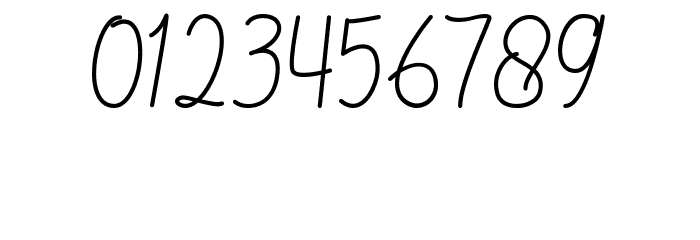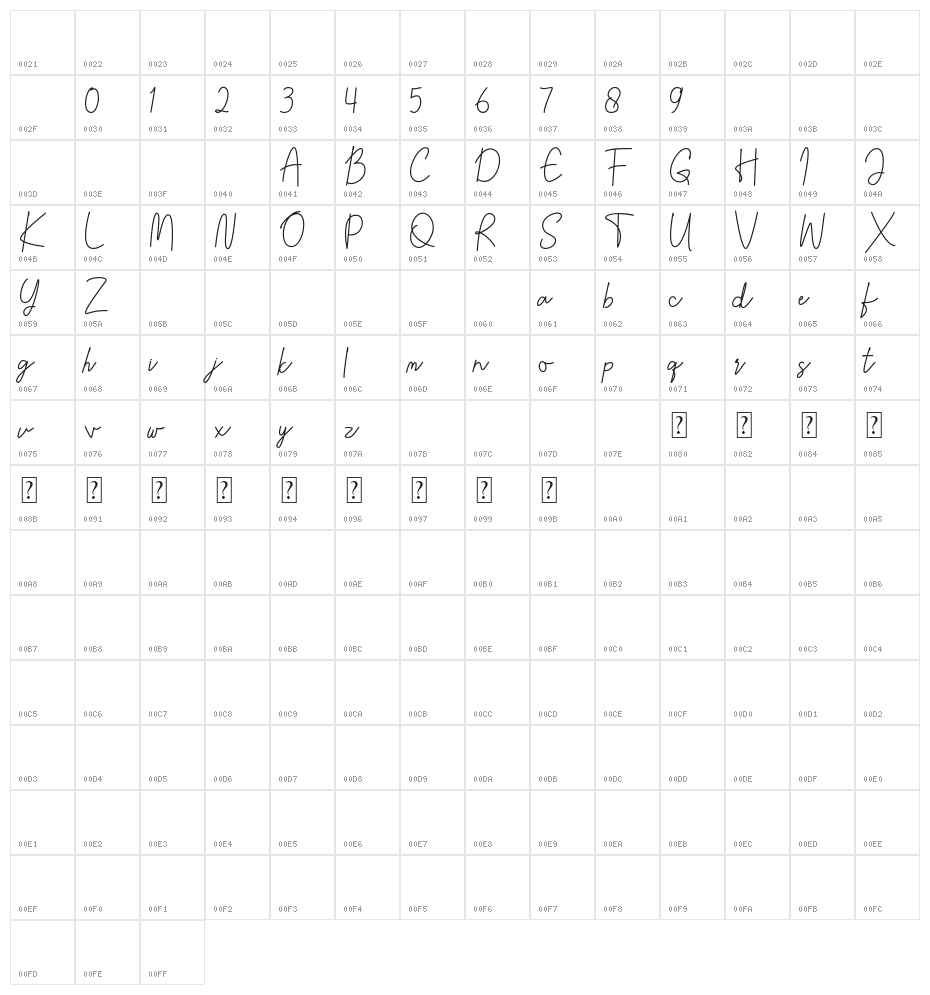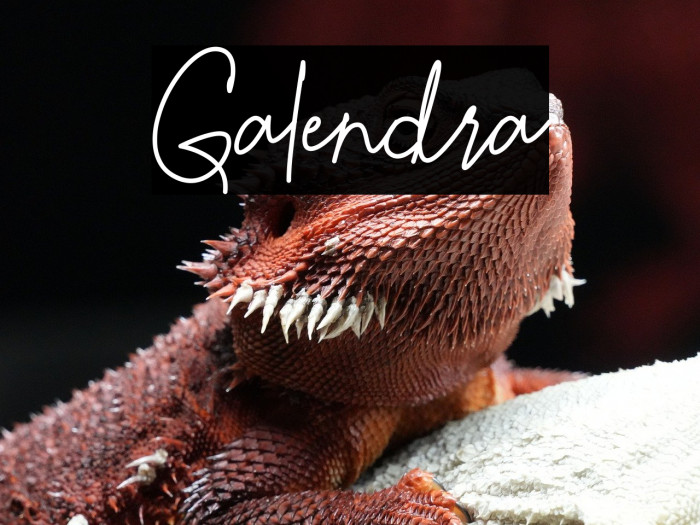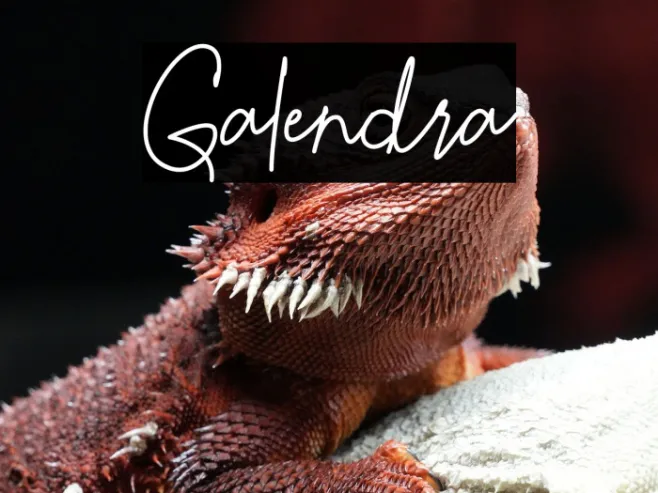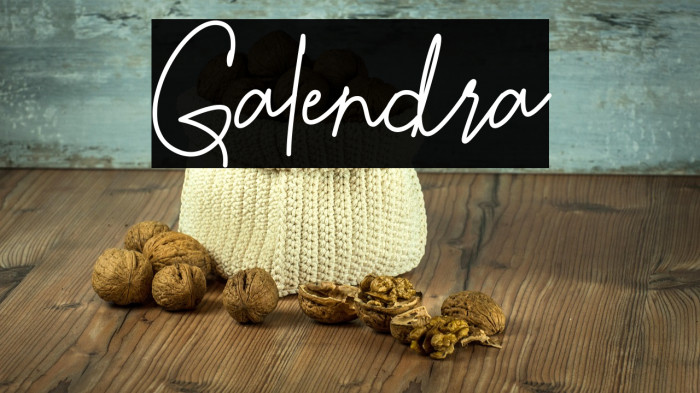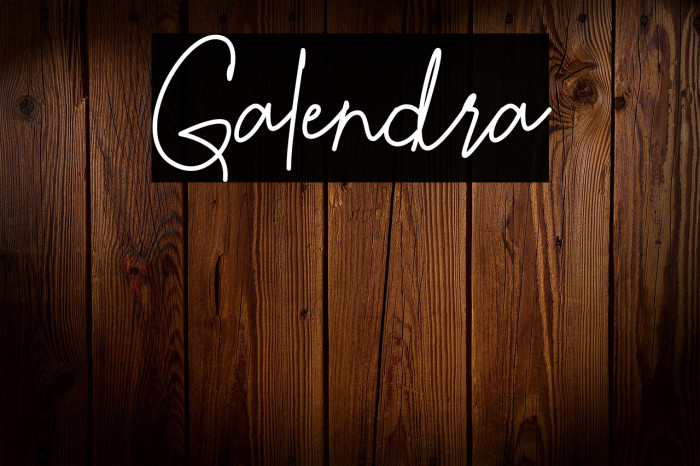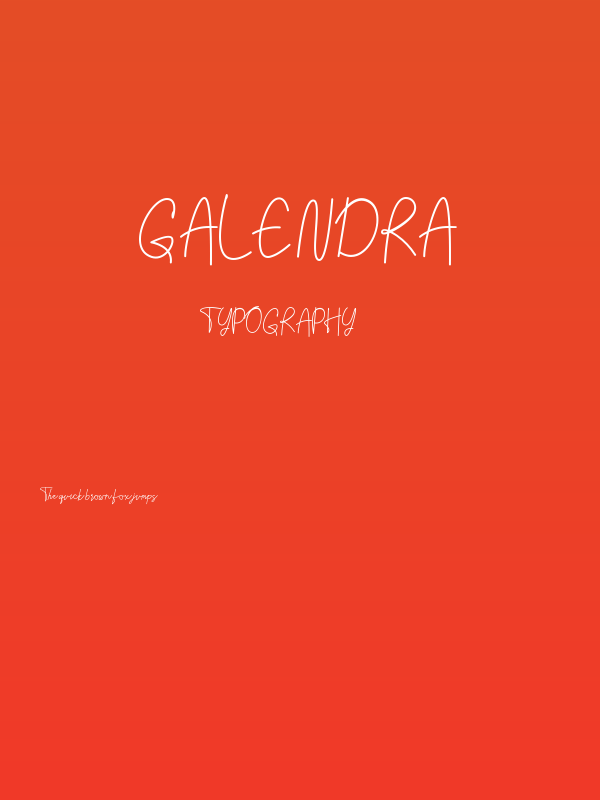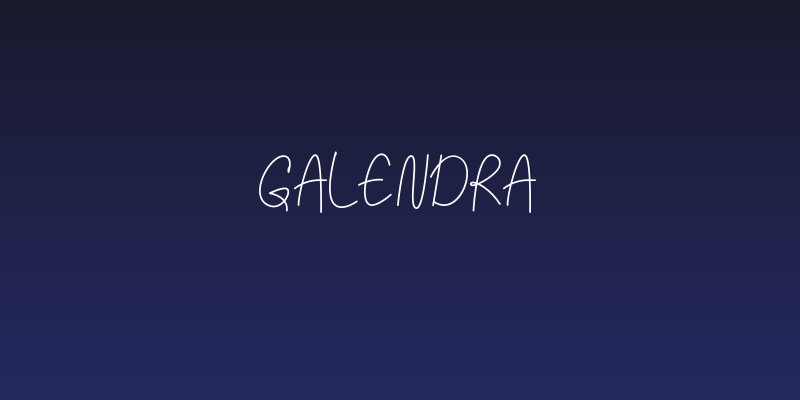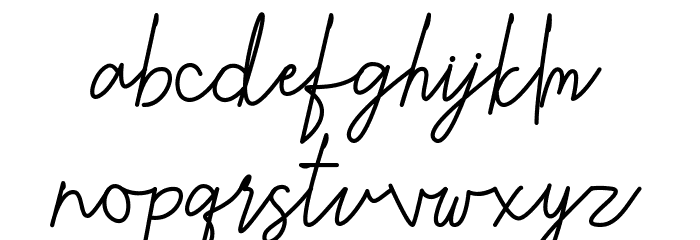
Galendra Font
Galendra Description
This font exudes a casual and playful handwritten style, characterized by its fluid and connected strokes. The letters are slightly slanted, giving it a dynamic and lively appearance. The uppercase letters maintain a consistent height, while the lowercase letters vary slightly, adding to the informal charm. The numerals are clear and easy to read, complementing the overall style. The special characters are well-integrated, maintaining the font's cohesive look. This font is perfect for projects that require a personal touch, such as invitations, greeting cards, or creative branding.
Overall StyleCasual
Use CaseHeadlines, Logos, Invitations
Proposed ProjectsIdeal for invitations, greeting cards, personal branding, and creative projects.